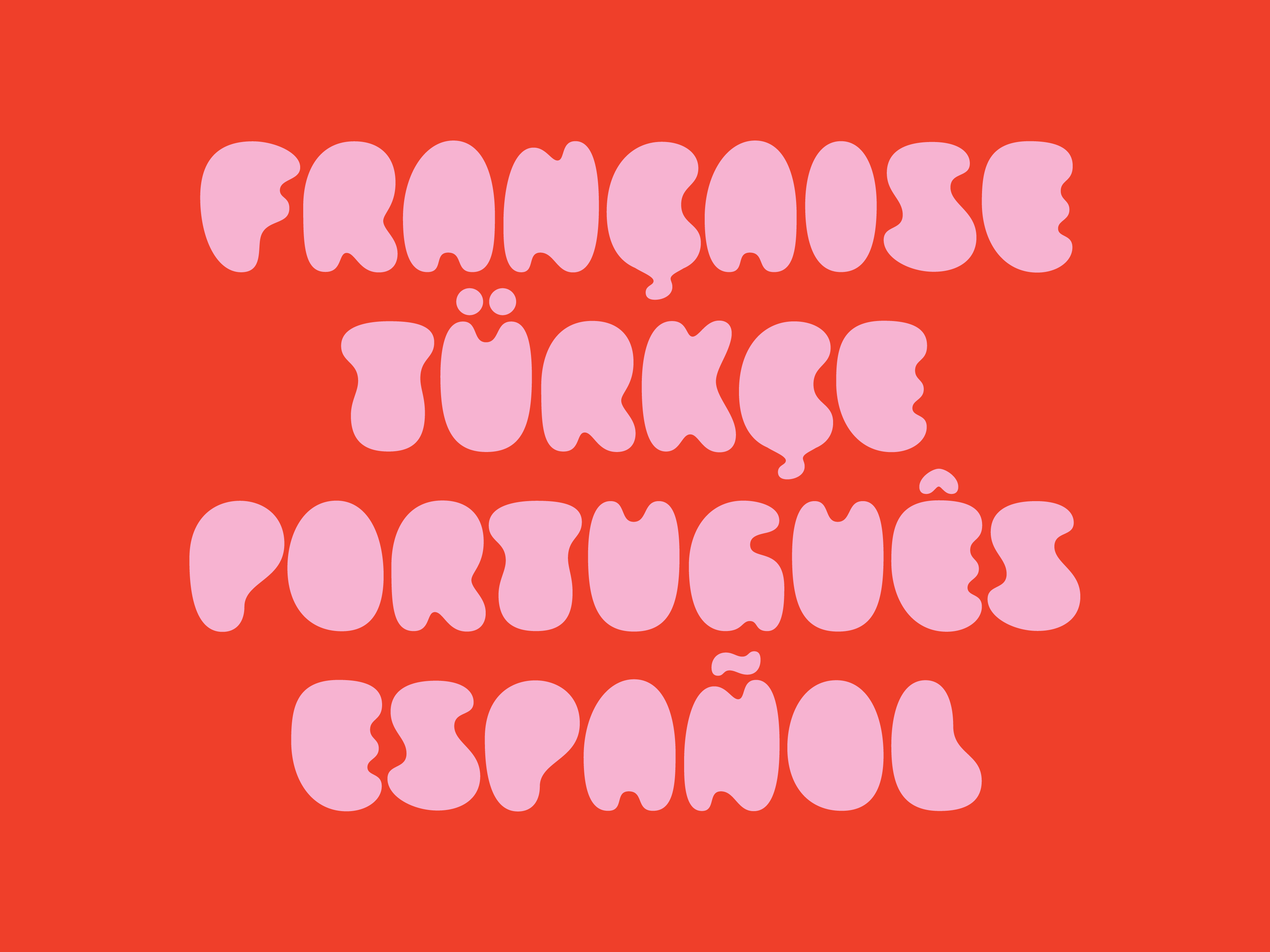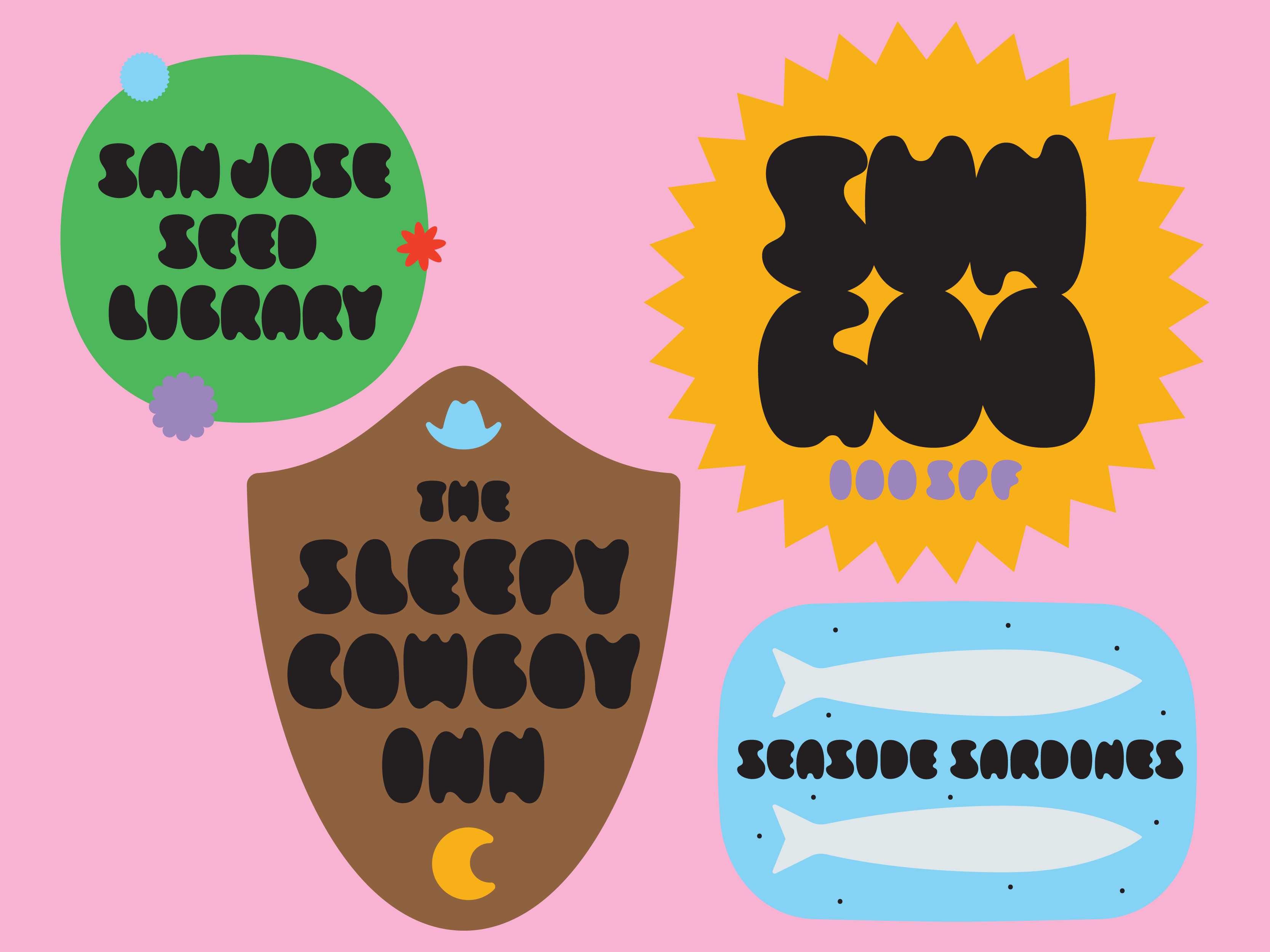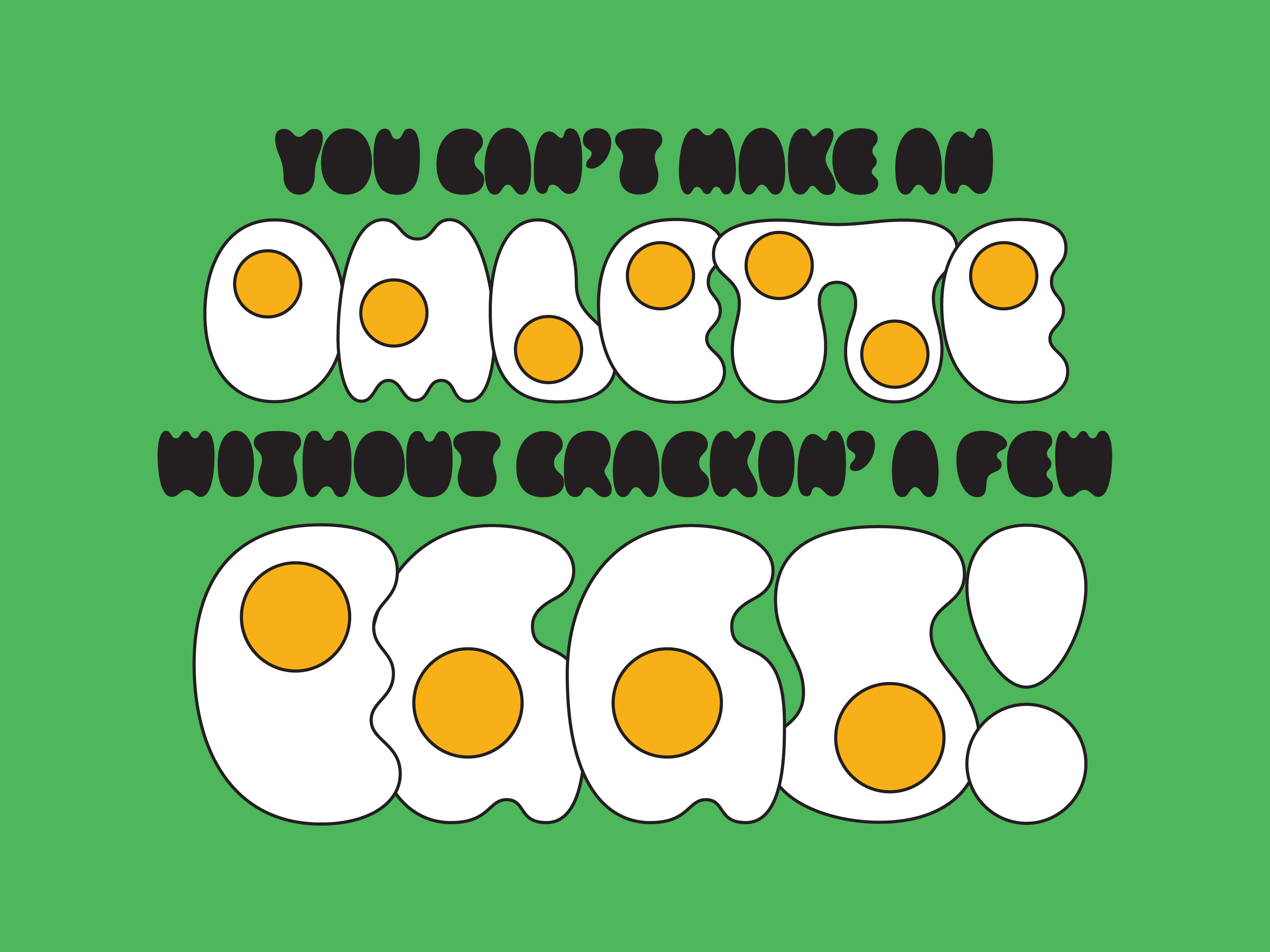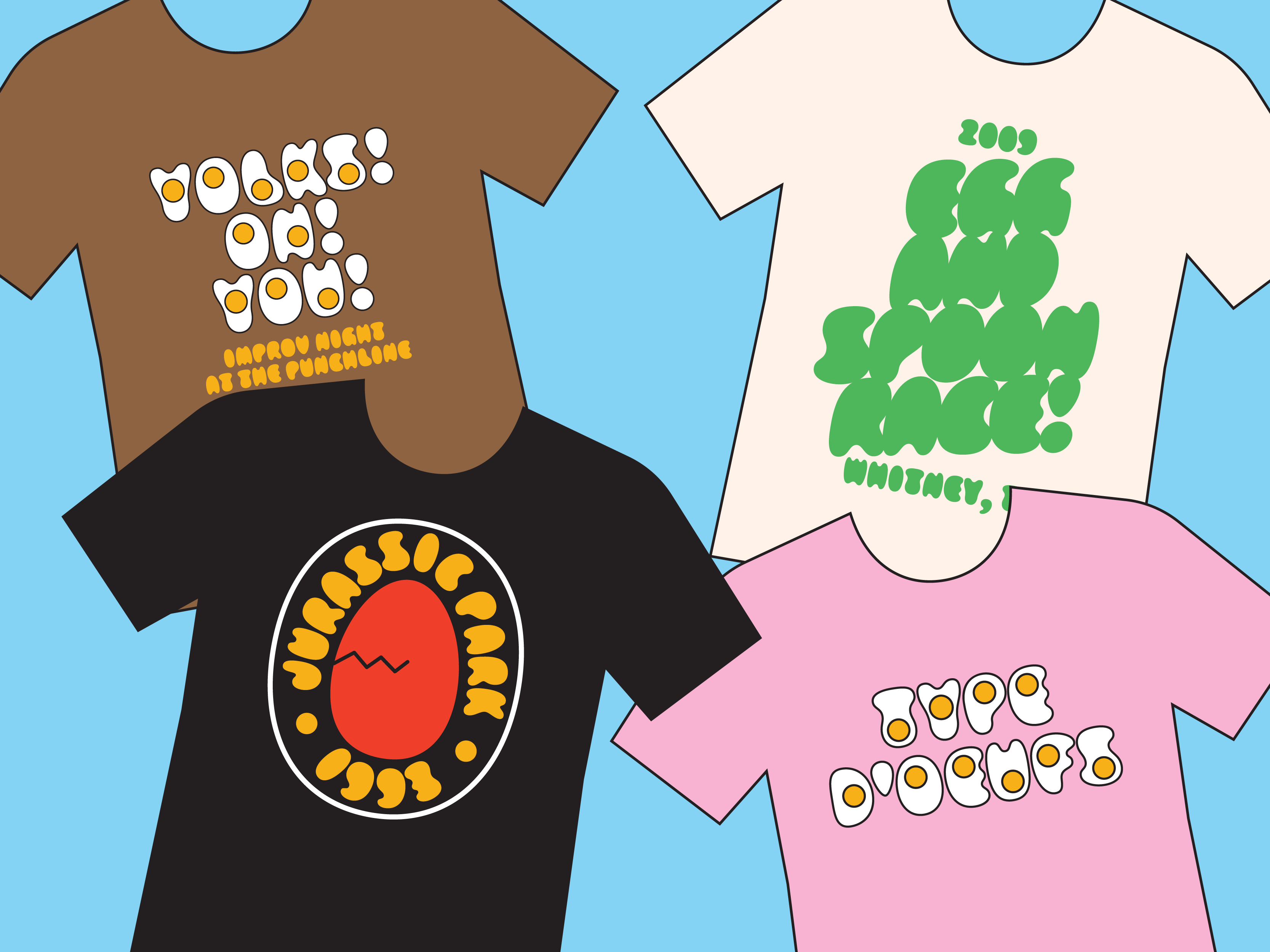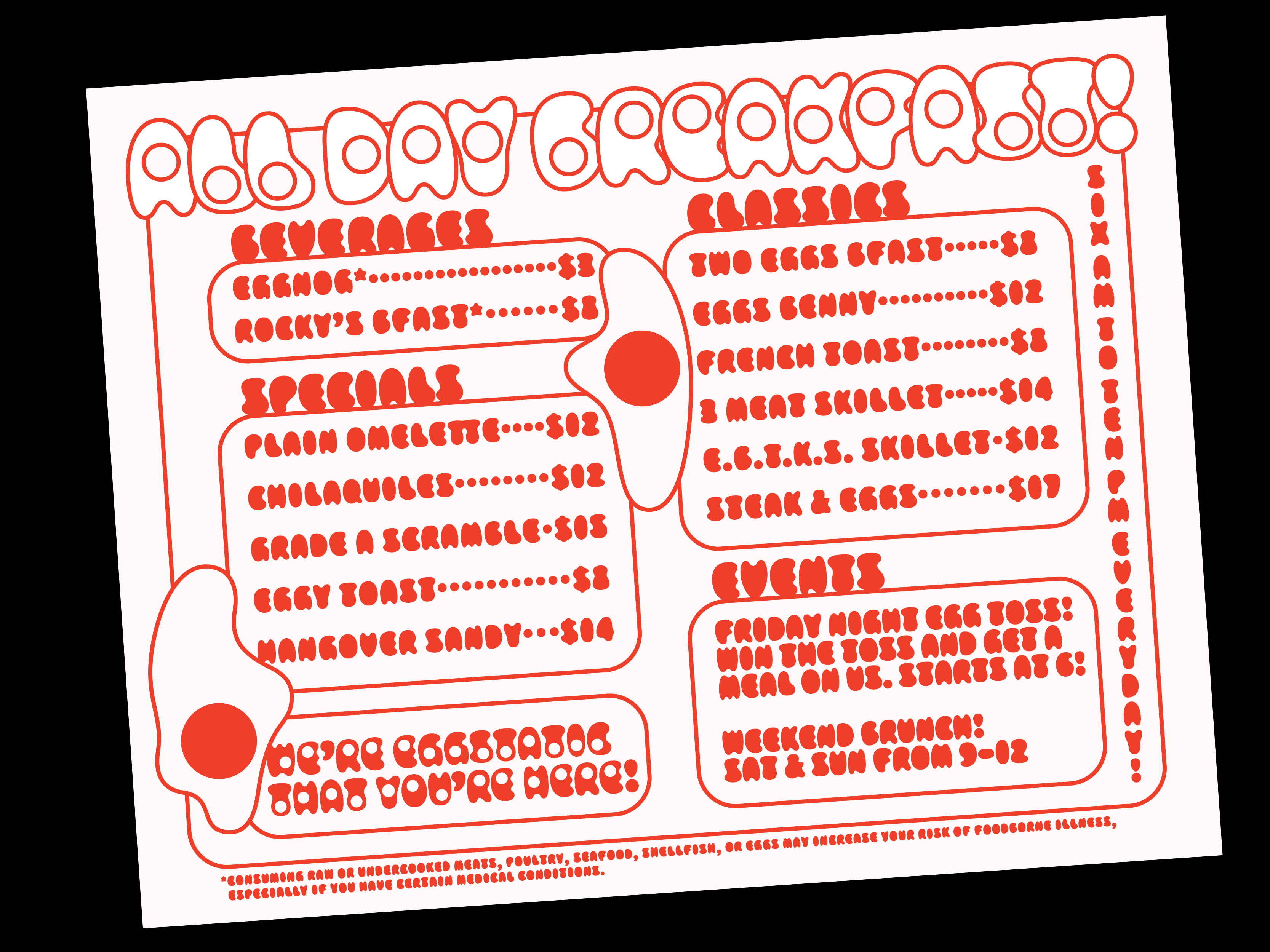
Yolker
Yolker began in 2021 as a part of my 52 Fonts Project. It has become one of my favorites and is lovingly referred to as "egg font." ‍This typeface is designed to look like eggs just dropped into a pan. Each letter is meant to feel like it approximates the same volume as the average egg. Yolker forgos the usual straight lines, counters, and sharp corners which causes it to playfully skirt the limits of legibility.
Yolker is designed with novelty and usability in mind — egg font contains multitudes! Consider it your go-to font for novelty tees, diner menus, and truly anything breakfast themed! Check out Yolker Color! It's a new addition to the egg family. Designed by the wonderfully talented, Sophia Tai!